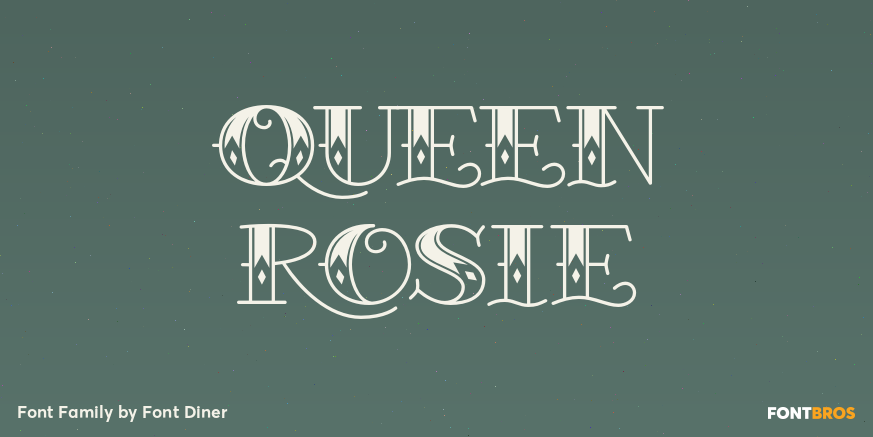
HomeFont BrosRetro (1936-1965)Queen Rosie Retro (1936-1965)Special EffectWacky Queen Rosie FacebookXPinterestWhatsApp 1 of 1 About Queen Rosie She\’s ornate, she\’s well read and she\’s loaded with tatoos! Queen Rosie holds court for all the rockabilly hipsters!  DOWNLOAD ON FONT BROSThis font is sold and delivered by Font Bros. Font Canyon may earn a commission if you buy through this link. People also explored Simple Farmhouse Font Anelka Font Makeup Font Sabrina Font Ramona Sweet Font Night Font Christmas Wreath Font Hughoney Font Buttermillon Font 280 0 TagsQueen Rosie Font Previous articleSunblock Pro CollectionNext articleTropical Lounge LEAVE A REPLY Cancel reply Comment: Please enter your comment! Name:* Please enter your name here Email:* You have entered an incorrect email address! Please enter your email address here Website: Save my name, email, and website in this browser for the next time I comment. Personal Use Free Mounets Personal Use Free Read more about this font Bethania Personal Use Free Read more about this font Konexio Personal Use Free Read more about this font Santhony Personal Use Free Read more about this font BLOG Transform Your Website: Elevate Your Typography with 7 Best Web Font Generators Are you ready to transform your website's typography from ordinary to extraordinary? Great! Today, we're diving into the world of web font generators, which... To increase your work productivity, choose the most readable fonts. Exploring Font Trends Free Fonts Risk: Why Free Fonts Can Be Dangerous for Designers